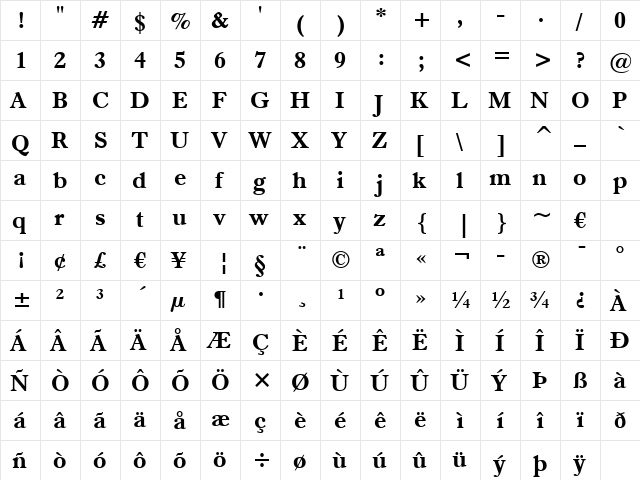
Dutch766 BT Bold
Design Context for Dutch766 BT Typeface
Dutch766 BT is a composed and adaptable typeface that performs quietly and consistently across a wide range of design contexts. The heavy weight commands attention and anchors typographic hierarchies.